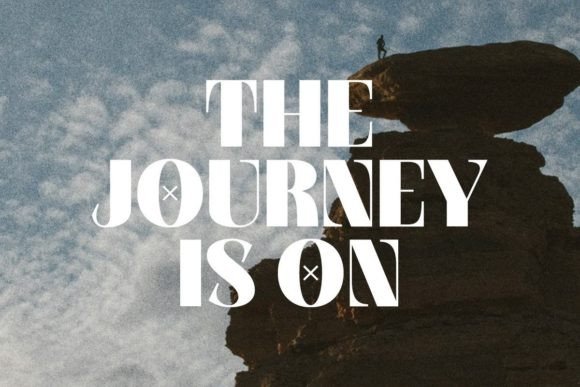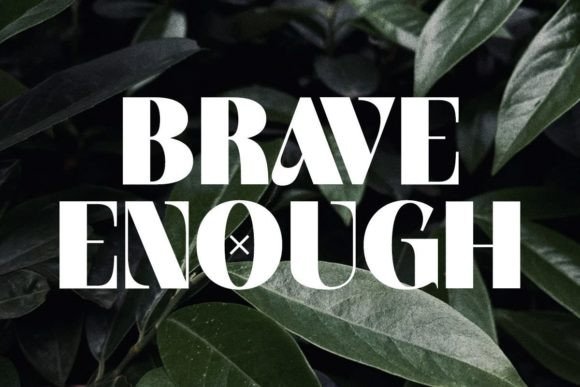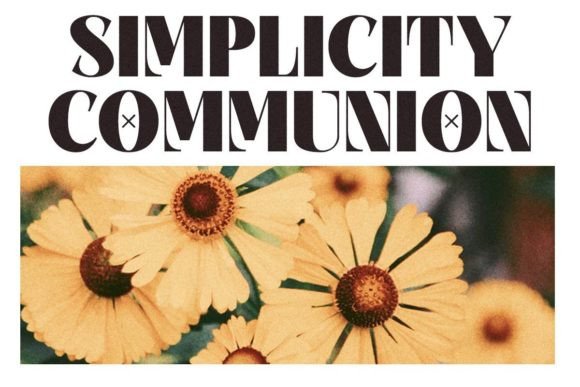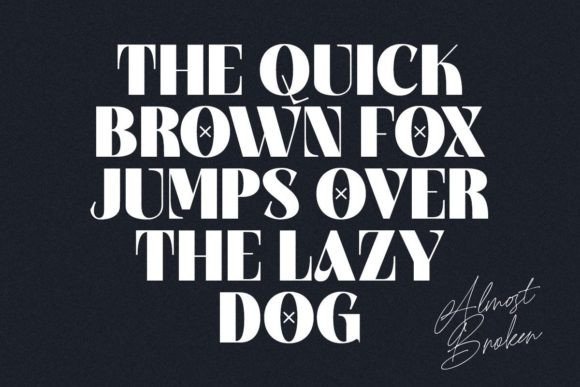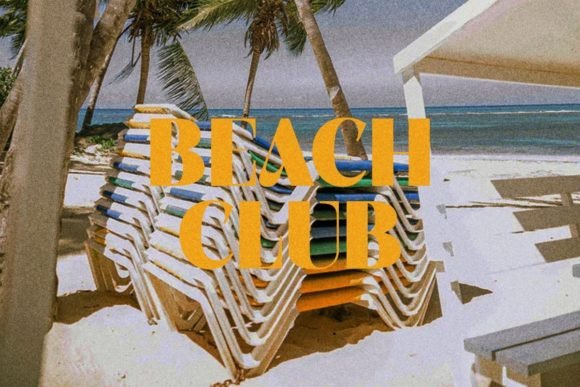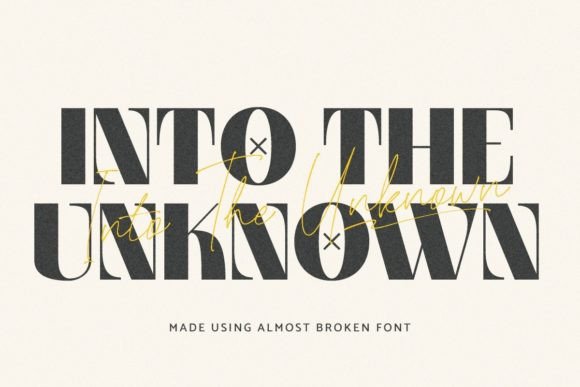
Introducing Almost Broken: A Modern Display Font with a Bold Personality
In the world of typography, a font can make or break a design. For designers and crafters, finding the perfect font that conveys the right message and aesthetic can be a daunting task. However, if you’re looking for a modern display font that exudes boldness and charm, look no further than Almost Broken. This stunning font is designed to make a statement, and in this article, we’ll explore its features, benefits, and uses.
What is Almost Broken?
Almost Broken is a modern display font that boasts a bold and strong personality with a charming twist. Its unique design makes it perfect for headlines, logotypes, magazines, advertising, and more. The font comes in two versions: regular and slanted, providing versatility and flexibility for designers. Whether you’re working on a branding project, editorial design, or marketing materials, Almost Broken is sure to make an impact.
Key Features of Almost Broken
- Bold and Strong Personality: Almost Broken is designed to grab attention. Its bold and strong personality makes it perfect for headlines, titles, and other display text.
- Charming and Unique: The font’s unique design elements add a touch of charm, making it stand out from other modern display fonts.
- Multilingual Support: Almost Broken comes with multilingual support, making it suitable for global brands and projects.
- Two Font Versions: The font is available in two versions: regular and slanted, providing designers with flexibility and options.
Uses of Almost Broken
Almost Broken is a versatile font that can be used in various design projects, including:
- Headlines and Titles: The font’s bold personality makes it perfect for headlines, titles, and other display text.
- Logotypes and Branding: Almost Broken’s unique design elements make it suitable for logotypes and branding projects.
- Magazines and Editorials: The font’s charm and character make it perfect for magazine and editorial design.
- Advertising and Marketing: Almost Broken’s bold and attention-grabbing design makes it suitable for advertising and marketing materials.
Benefits of Using Almost Broken
By using Almost Broken in your design projects, you can:
- Make a Statement: The font’s bold personality ensures that your design makes a statement and grabs attention.
- Add Character to Your Design: Almost Broken’s unique design elements add character and charm to your design.
- Enhance Brand Identity: The font’s versatility and multilingual support make it suitable for global brands and projects.
Almost Broken is a modern display font that offers a unique blend of boldness and charm. Its versatility, multilingual support, and two font versions make it a valuable asset for designers and crafters. Whether you’re working on a branding project, editorial design, or marketing materials, Almost Broken is sure to make an impact. So, if you’re looking for a font that can help you make a statement, look no further than Almost Broken.
In conclusion, Almost Broken is a modern display font that is sure to elevate your design projects. Its bold personality, charming design elements, and versatility make it a valuable asset for designers and crafters. So, what are you waiting for? Give Almost Broken a try and experience the difference it can make in your designs.